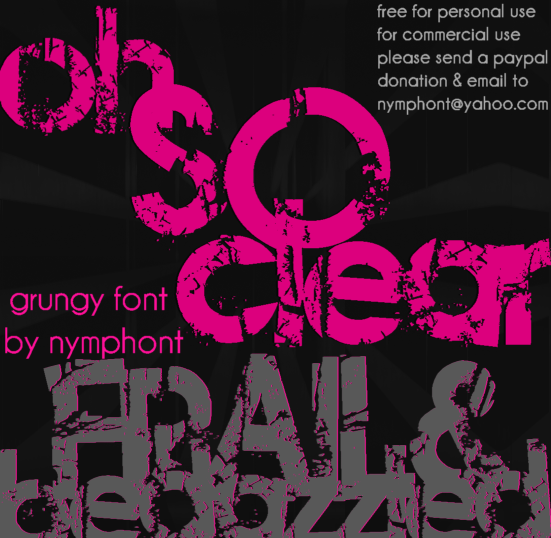
Preview and download Frail & Bedazzled Font. Created by Lauren Thompson in Fancy Destroy styles with Free for personal use license.
Just wanted to add this note about this font: This font looks great as a title or display font, i.e especially when done so in one case; using all capitals or all lowercase letters. Try it! |